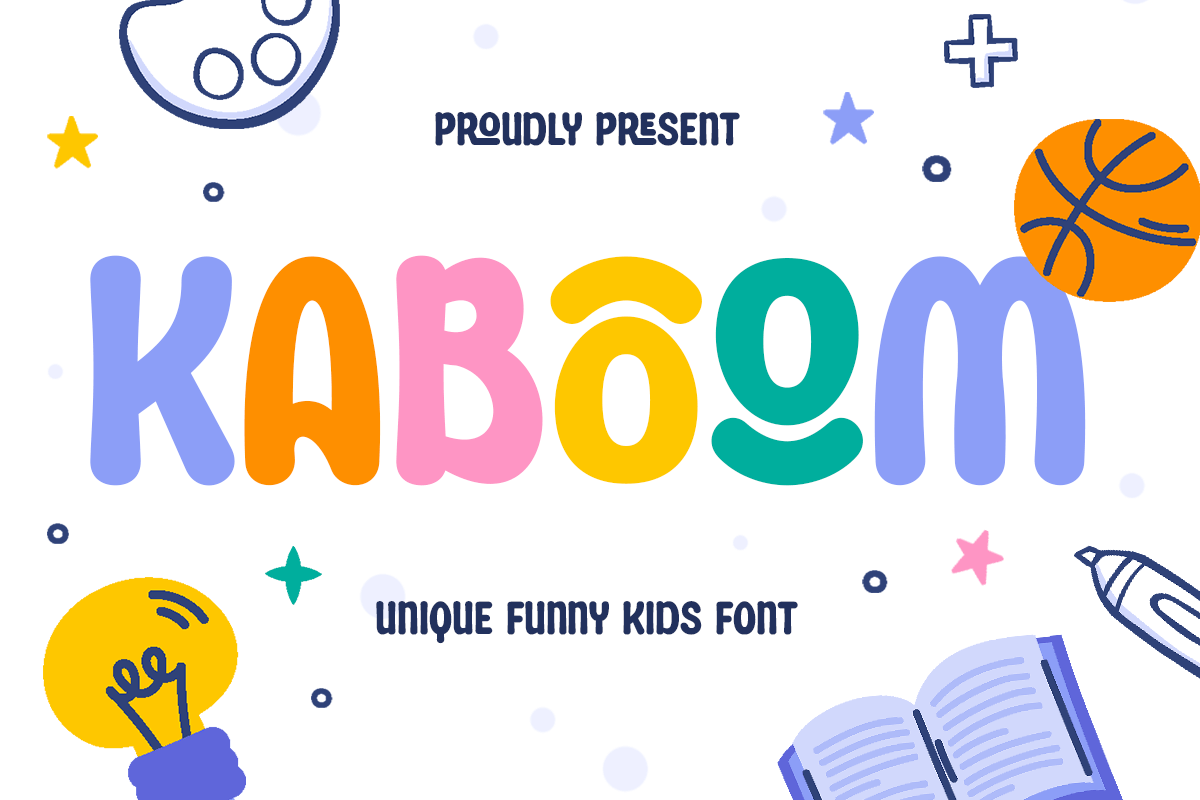
Kaboom
-Unique Funny Kids FontKaboom - Unique Funny Kids Font
KABOOM is a unique funny kids font full of energy, joy, and imagination! Designed with rounded shapes and quirky details, it brings a playful vibe to every project — perfect for children’s branding, cartoon titles, games, and creative packaging.
With bold letterforms and smooth curves, KABOOM captures a sense of excitement and fun. It’s easy to read yet full of character, making it ideal for posters, storybooks, toy packaging, classroom materials, and more.
Whether used in digital or print projects, KABOOM adds a cheerful and friendly touch that sparks creativity and happiness.
KABOOM – Unique Funny Kids Font Features
Playful and bold font with a rounded funny look
Perfect for kids’ branding, packaging, and cartoon titles
Fun, easy-to-read letterforms full of personality
Great for logos, posters, storybooks, and games
OpenType features for creative flexibility
Add a burst of joy to your work with KABOOM – the ultimate funny kids font for playful, colorful, and creative designs. 🎨✨